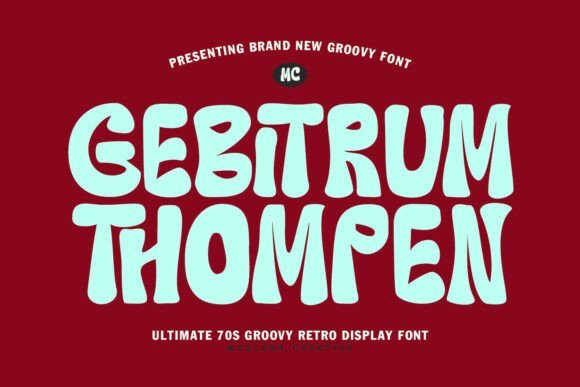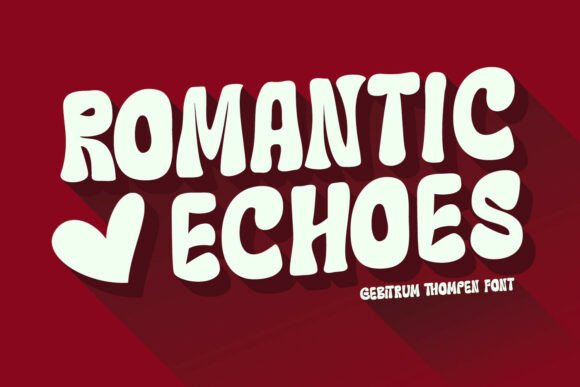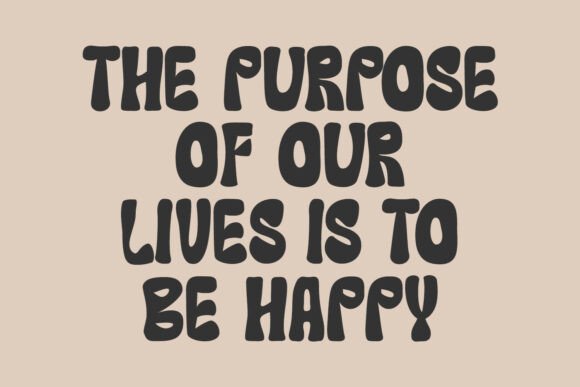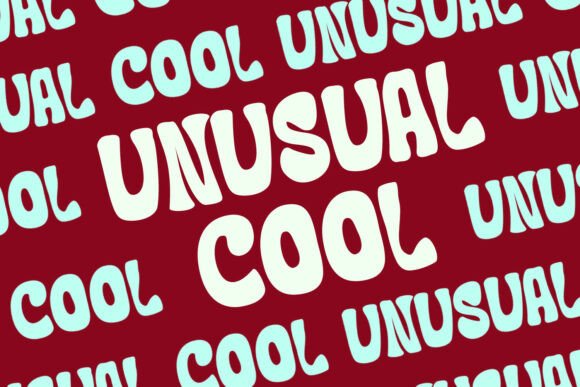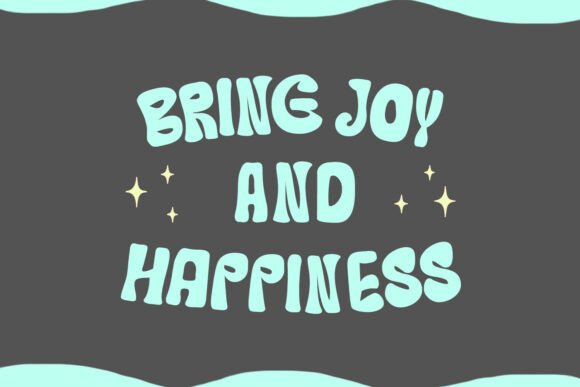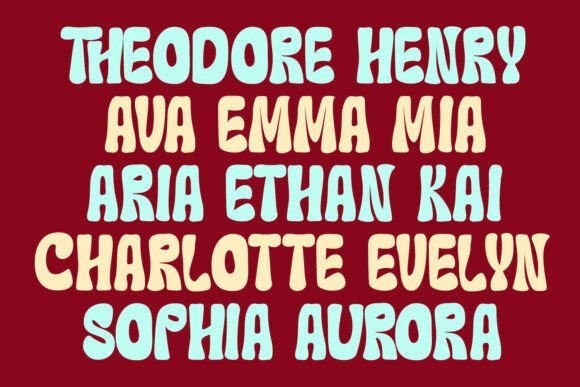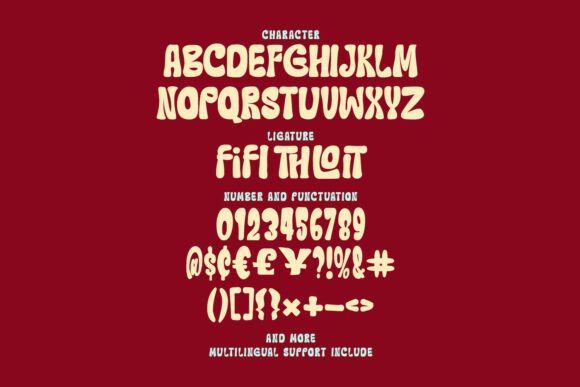
Get Ready to Groove with the Gebitrum Thompen Font
Remember the feeling of digging through your grandfather’s vinyl collection, surrounded by the iconic sounds of the 1970s? As you flip through the records, the vibrant colors and bold typography of the era’s posters and album covers catch your eye. You can’t help but feel the infectious energy of that bygone era. Now, imagine being able to capture that same spirit in your own creative projects.
Introducing the Gebitrum Thompen Font, a brand-new display font that embodies the carefree spirit of the 1970s. With its chunky, rounded, and playful letterforms, this font is the perfect tool for designers looking to inject a burst of vintage energy and fun into their work. Whether you’re creating a retro-themed campaign or simply want to add a touch of nostalgia to your designs, the Gebitrum Thompen Font is the perfect choice.
Gebitrum Thompen Font Key Features
- Font Family: Gebitrum Thompen Font is a unique, handwritten font family designed to evoke a sense of elegance and sophistication.
- Character Set: The font family includes a comprehensive set of characters, including uppercase and lowercase letters, numerals, punctuation marks, and special characters.
- Unique Characteristics: Gebitrum Thompen Font features a distinctive, hand-drawn style with subtle variations in letterform and stroke width, giving it a unique and personalized touch.
Gebitrum Thompen Font Review
After experimenting with the Gebitrum Thompen Font, I have a mixed bag of thoughts. Here’s a breakdown of what I think works well and what doesn’t.
- The unique blend of modern and vintage elements gives it an interesting aesthetic.
- The font is highly legible, even at smaller font sizes.
- The designer has included a range of weights and styles, making it versatile for various design applications.
Limitsations ⚠️
- The font may not be suitable for all types of content, particularly for formal or professional settings.
- The spacing and kerning could be improved in certain characters.
- The font may not be as distinctive or memorable as some other fonts in its category.
Overall, I think the Gebitrum Thompen Font is a solid addition to any designer’s toolkit. While it may not excel in every area, its unique blend of modern and vintage elements makes it a great choice for projects that require a touch of personality. With a little tweaking to address its limitations, I think this font has the potential to be a real showstopper.
Use Gebitrum Thompen Font to add a unique touch to your social media graphics, blog posts, and presentations.
Use Gebitrum Thompen Font to create custom logos, typography-based artworks, and other creative projects.
Use Gebitrum Thompen Font to add a touch of elegance to your presentations and documents.
Gebitrum Thompen Font is perfect for:
Wedding invitations, save-the-date cards, and other wedding stationery.
Business cards, letterheads, and other corporate materials.
Typography-based artworks, quotes, and other creative projects.
Alternatives to Gebitrum Thompen Font
Inter Font is a clean and modern sans-serif font designed by Rasmus Andersson. It is a popular choice for digital products and is known for its high legibility and versatility. Use Inter Font when you need a clean and simple font for digital products, such as apps, websites, and software.
Compared to Gebitrum Thompen Font, Inter Font has a more neutral and minimalist design, making it a great choice for modern and sleek designs. It also has a wider range of weights and styles, making it more versatile for different design applications.